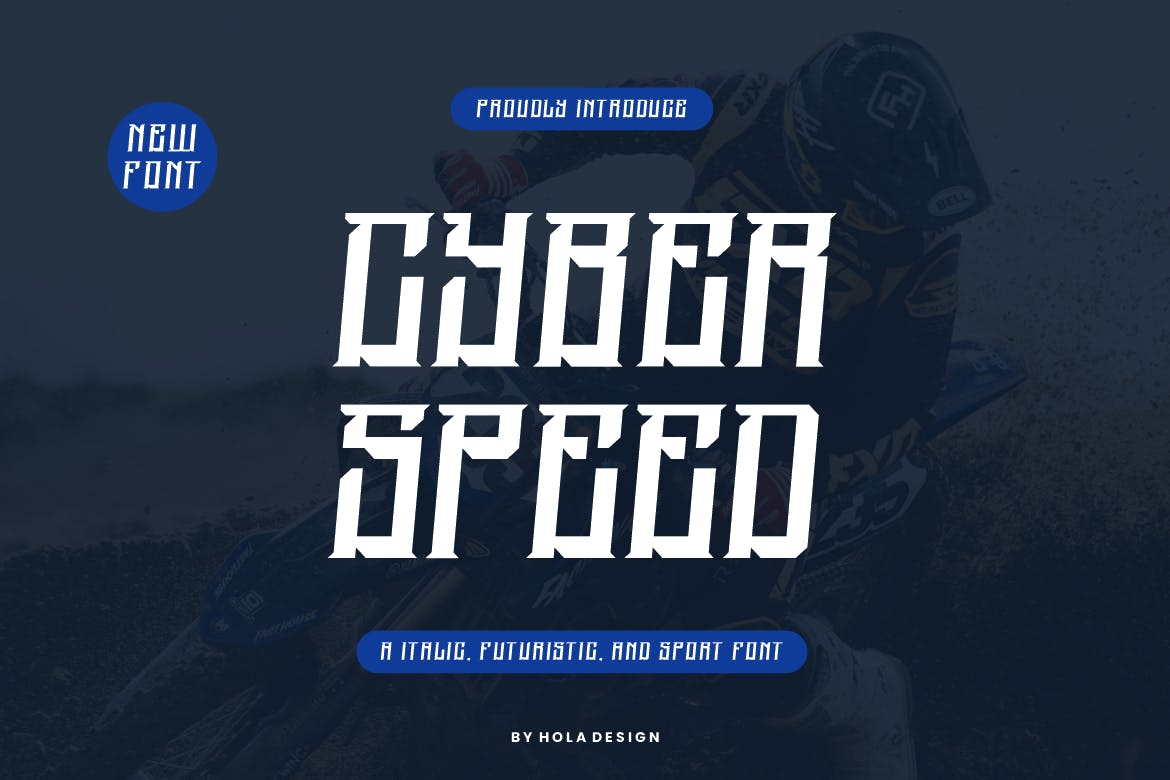
Cyber Speed Futuristic and Sport Font
Cyber Speed Futuristic and Sport Font is a dynamic typeface designed to embody the essence of modernity and athleticism. With its sleek lines and bold structure, this font enhances any design project by adding a sense of speed and energy. Ideal for branding, posters, and digital media, it captures attention and conveys a forward-thinking vibe.